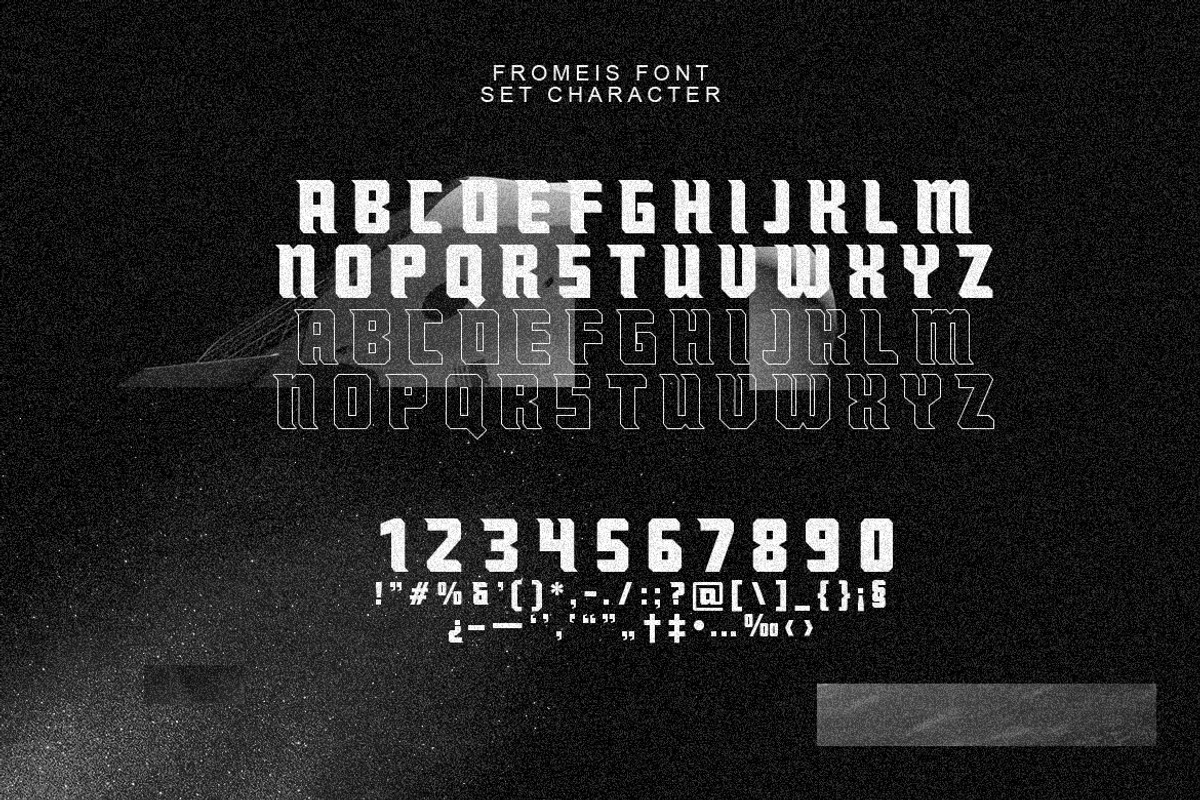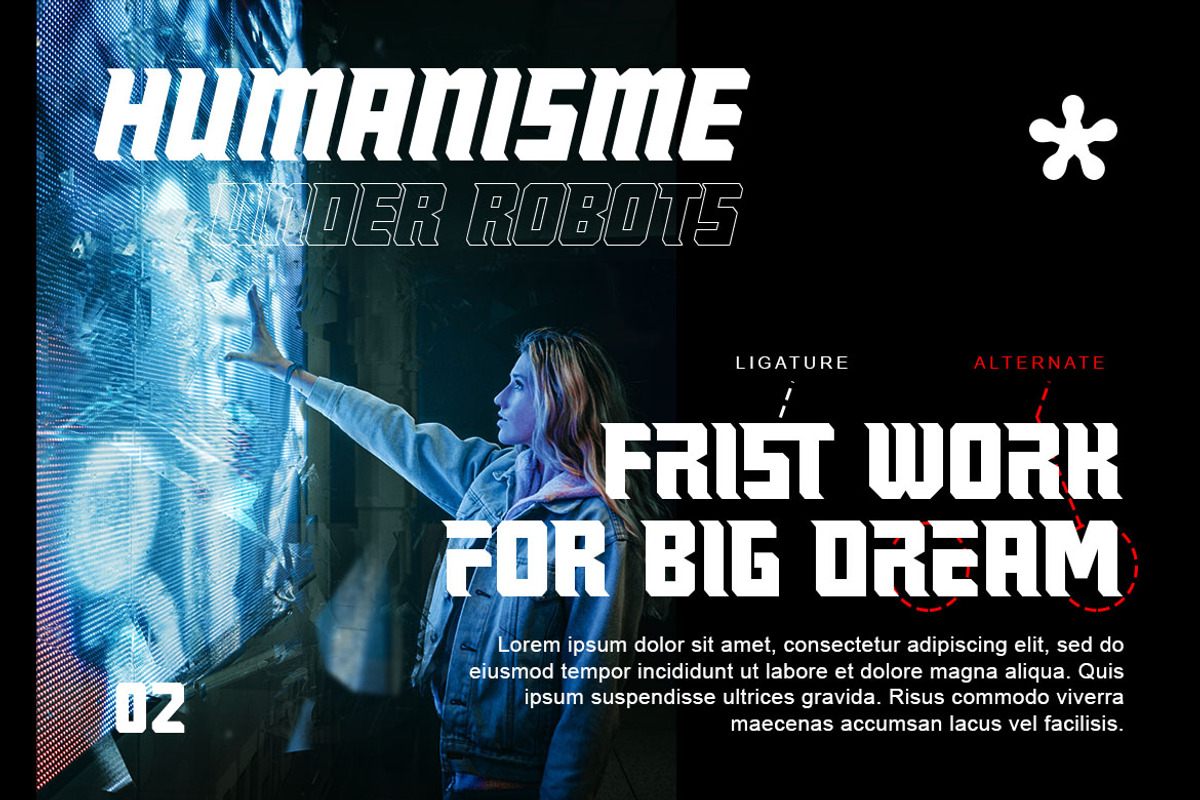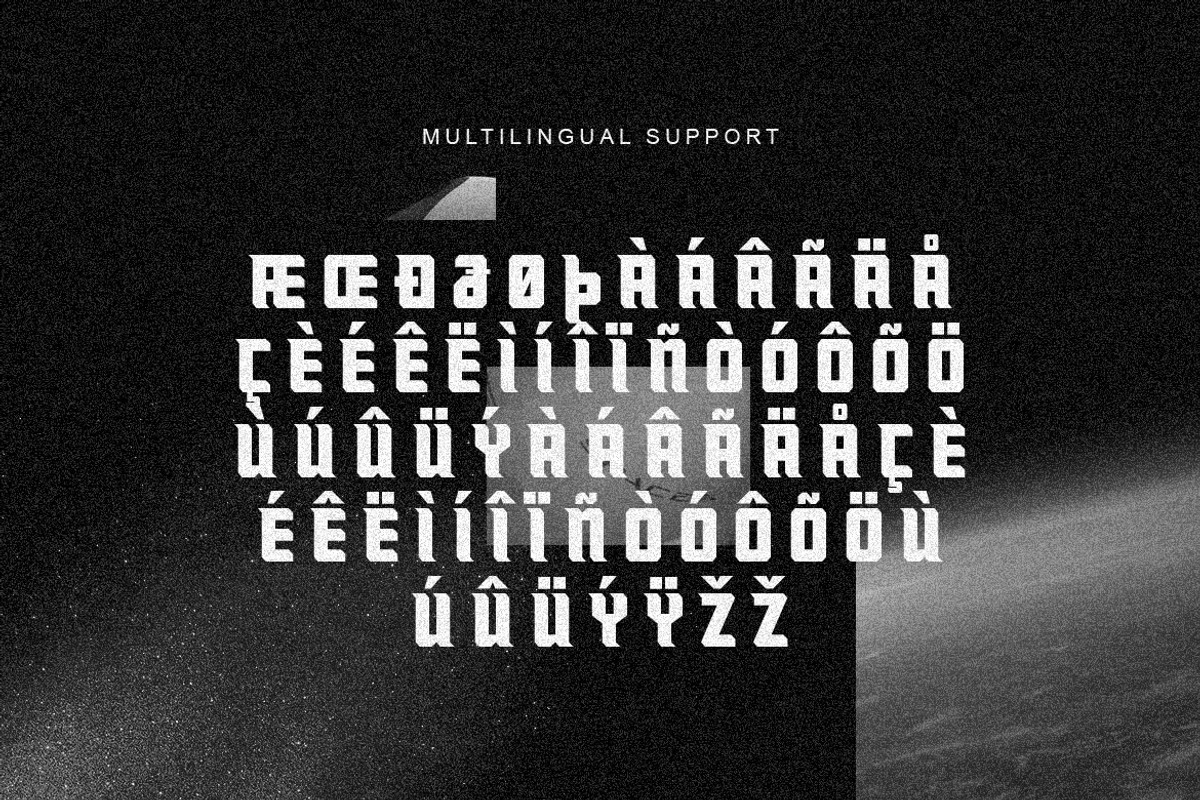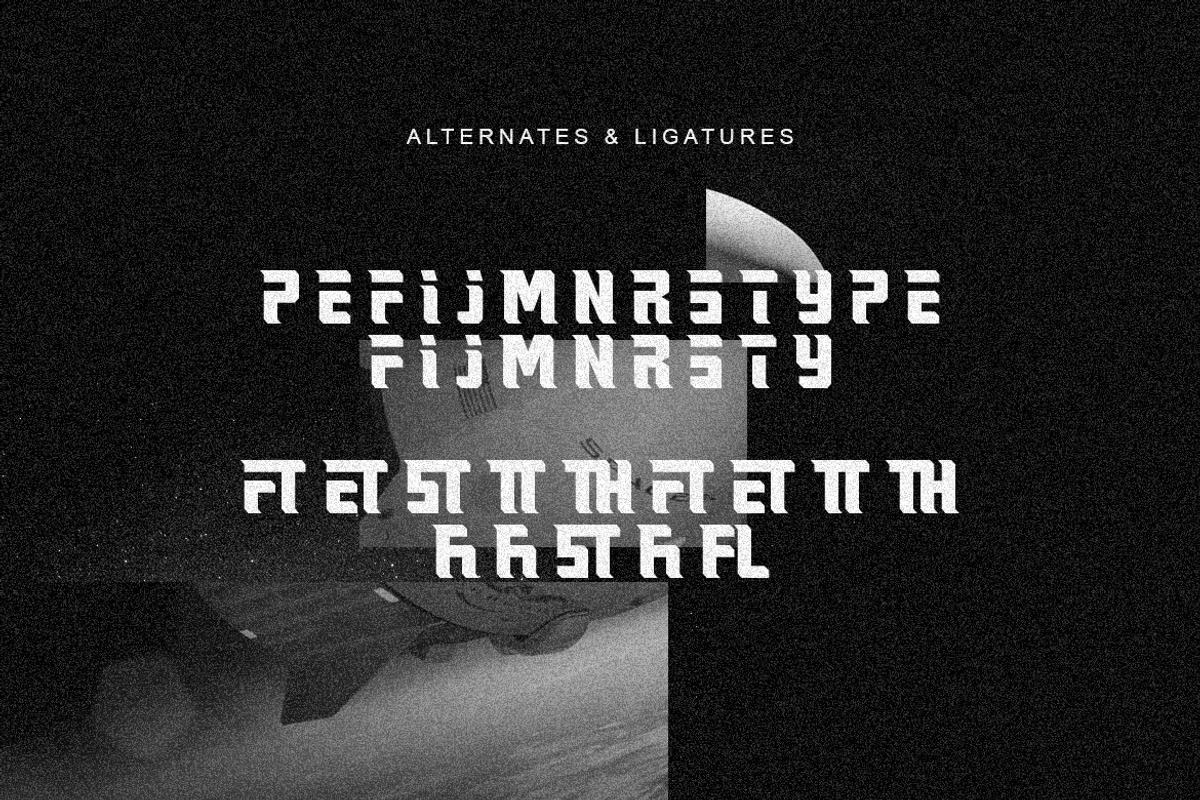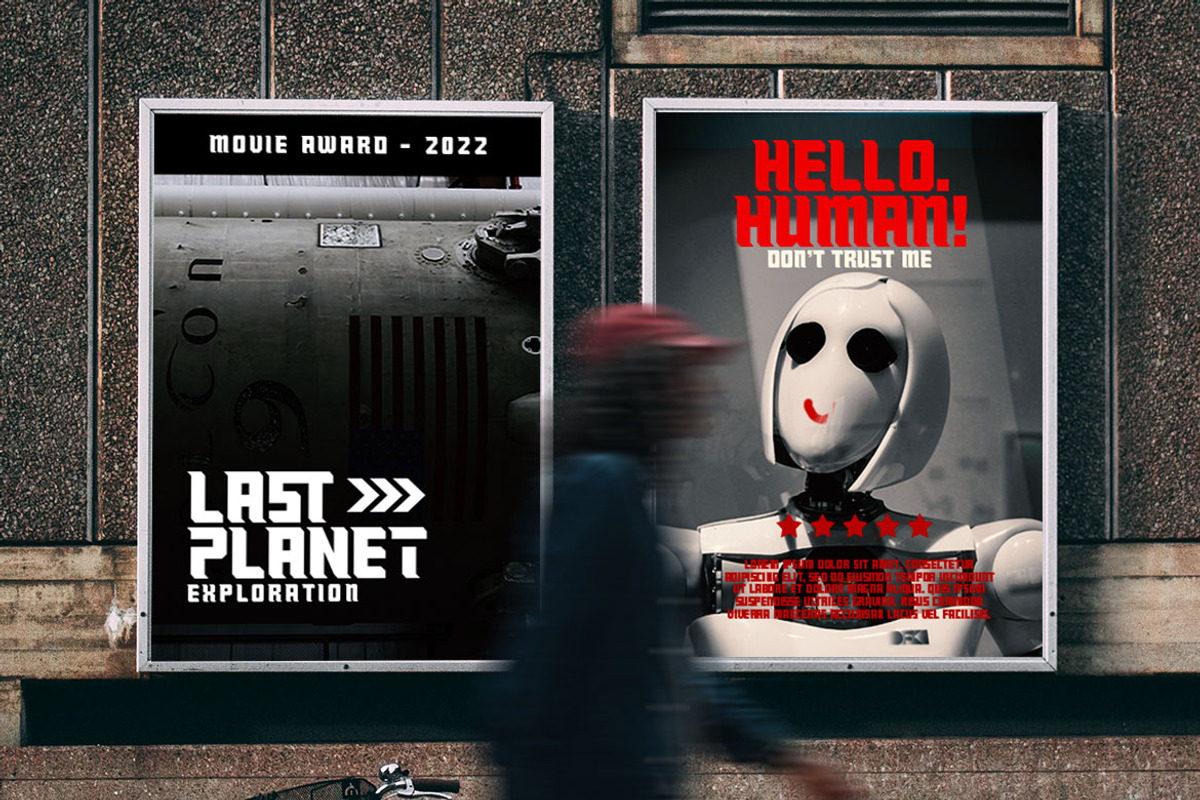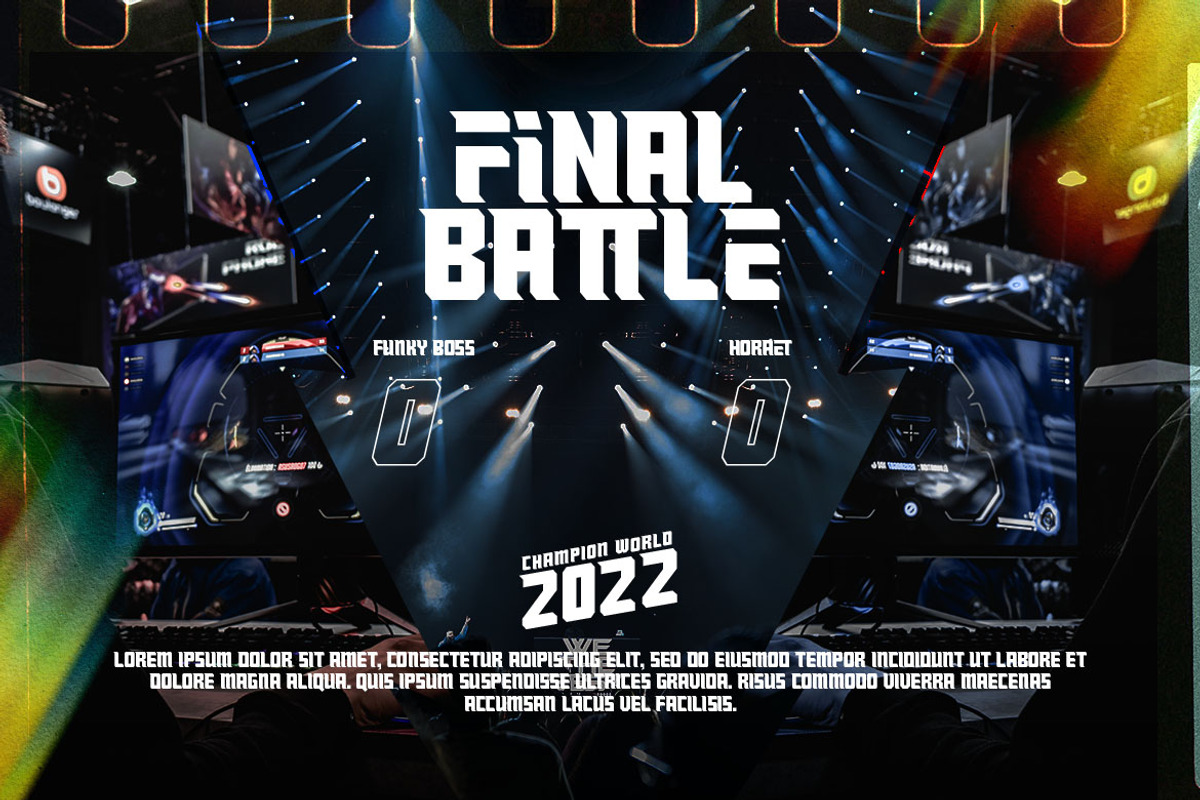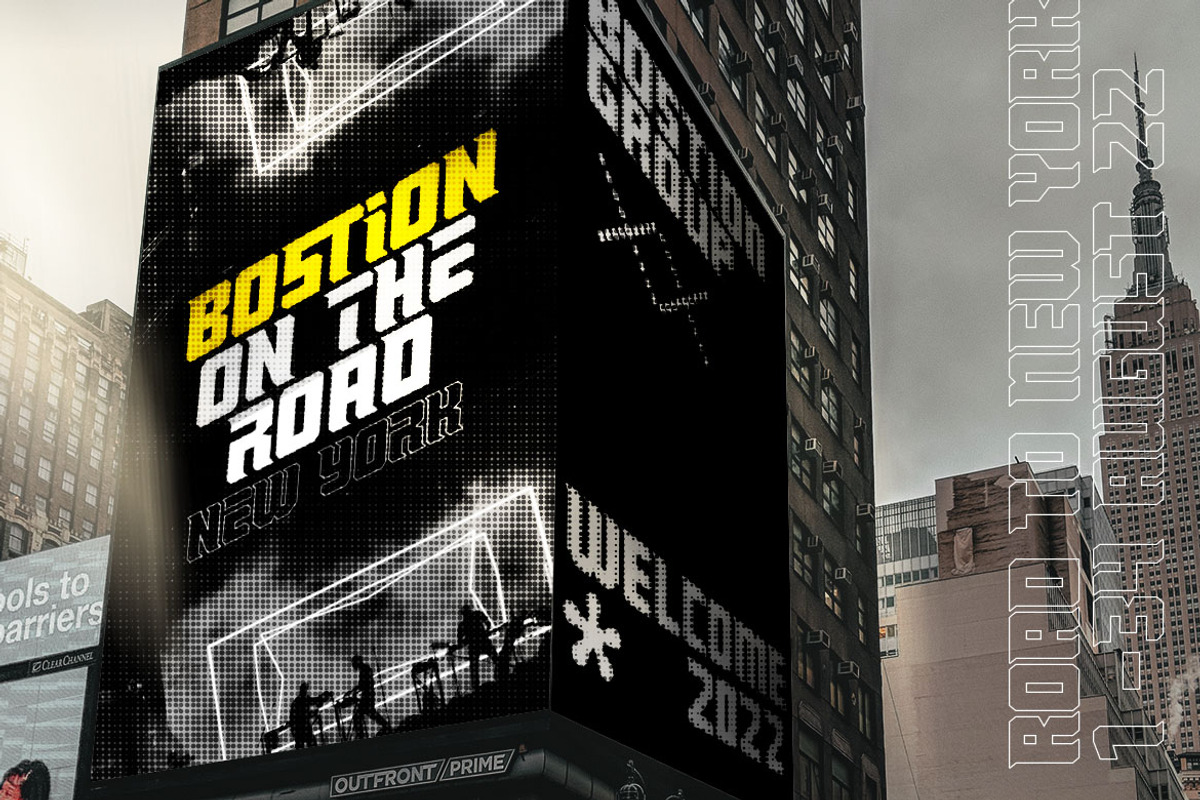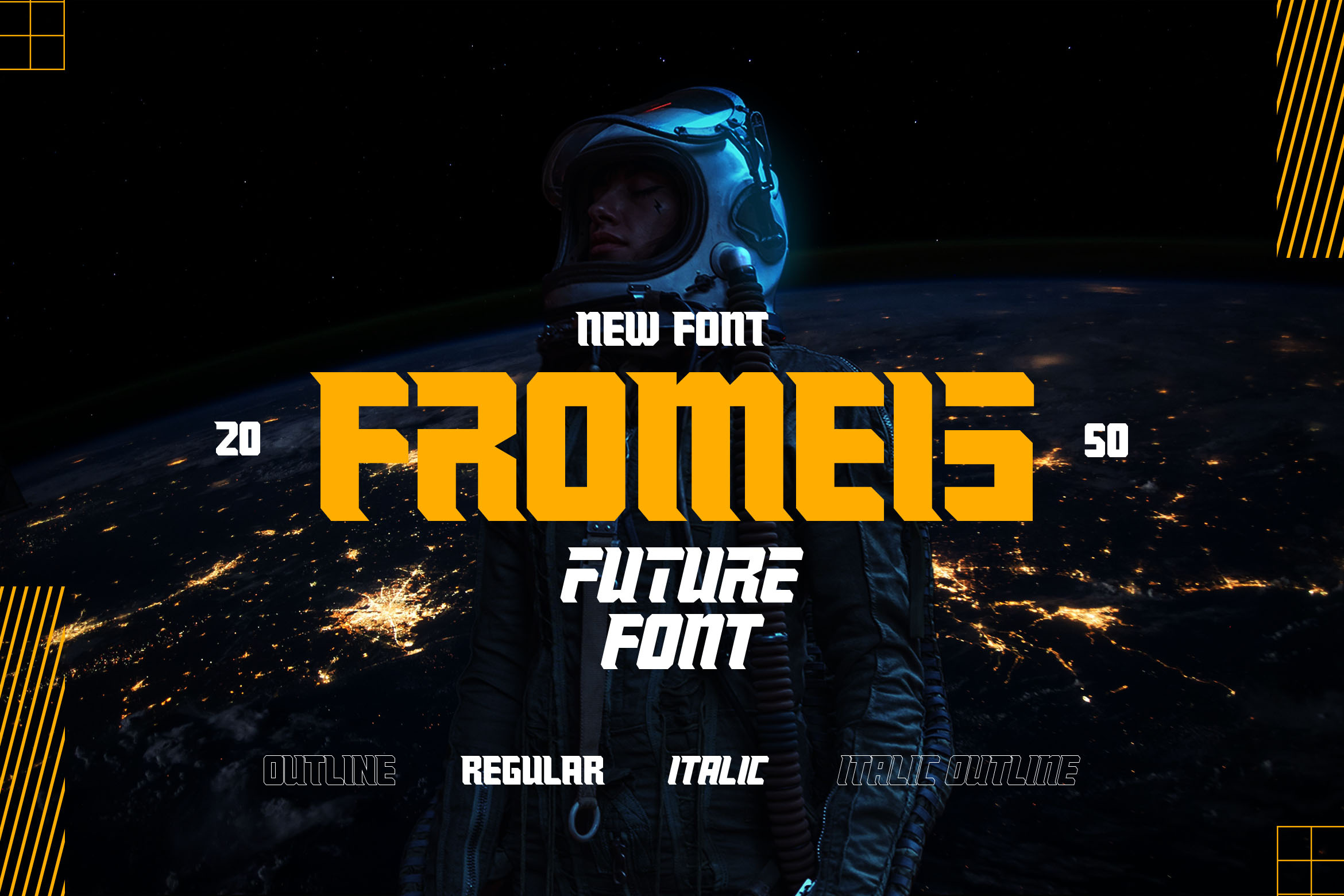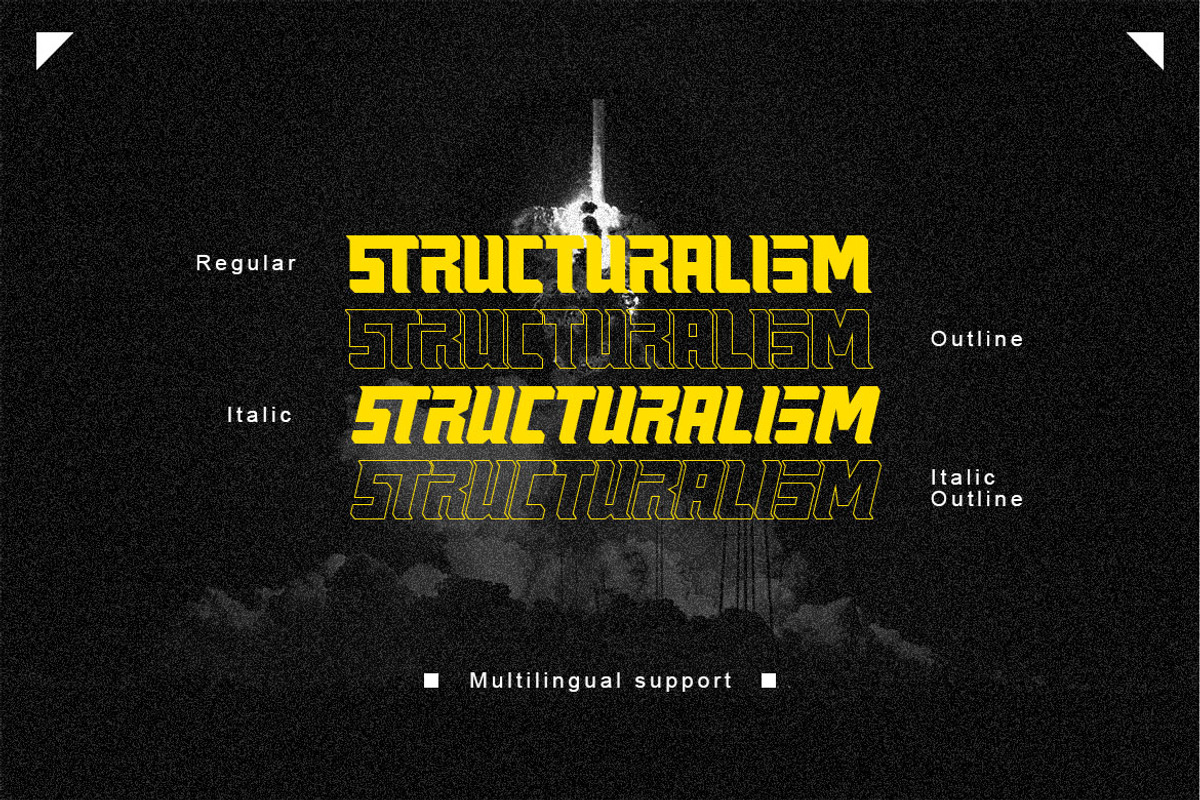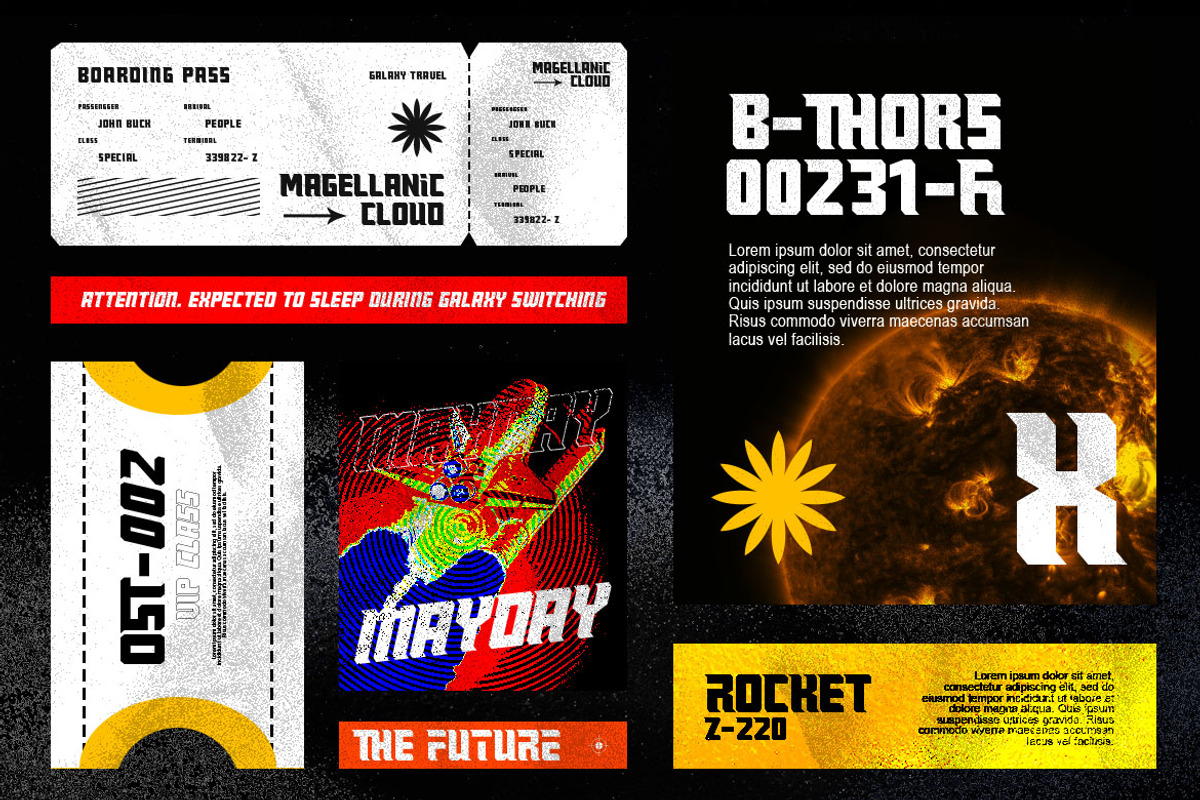
Fromeis - Future Font
Fromeis is a modern and cool serif font. Bold, strong, and assertive, this font will be a perfect choice for all your projects requiring daring typography. This font is PUA encoded which means all the glyphs and ligatures with ease!
Available :
- Italic
- Outline
- Outline Italic